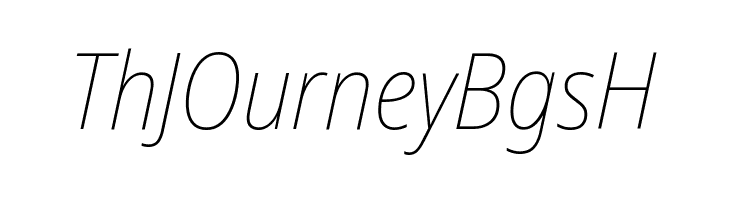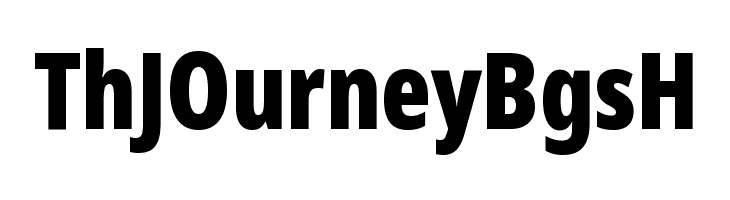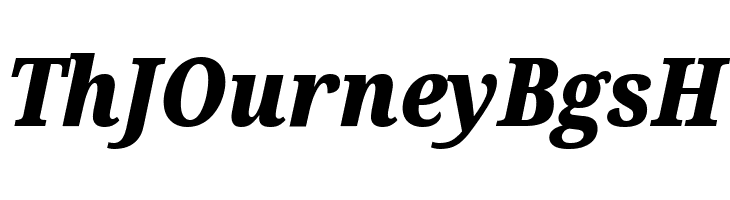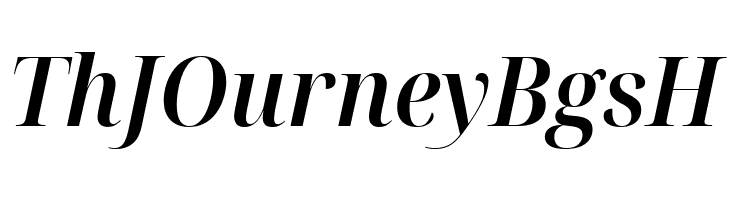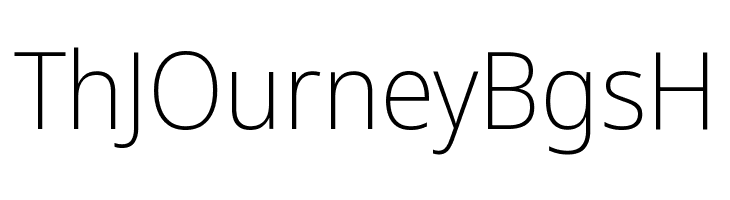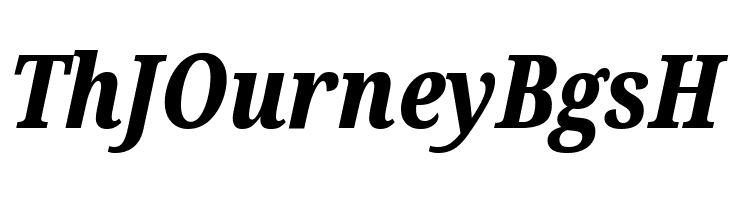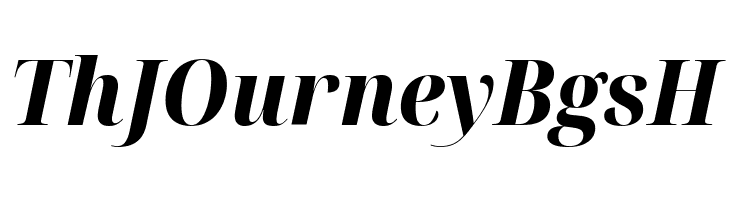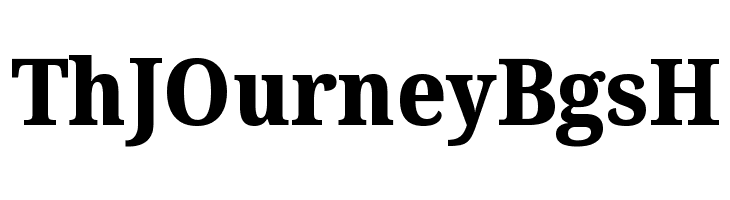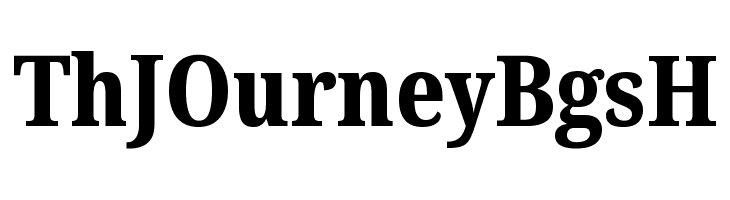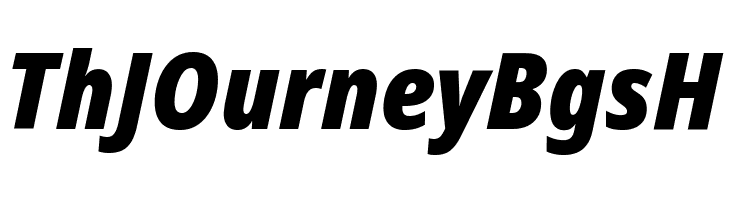
A sleek, modern, thin italic font with semi-condensed letterforms.
A bold, extra-condensed sans-serif font with strong visual impact.
A bold, condensed serif font with an elegant italic style.
A refined serif font with semi-condensed, semi-bold italic style.
A modern, extra light sans-serif font with a clean and minimalist design.
A classic serif typeface with extra bold, italic, and extra condensed features.
An elegant, extra bold, semi-condensed italic serif typeface with a modern twist.
A classic serif typeface with a semi-condensed, extra bold style, perfect for impactful headlines.
A bold, condensed serif font with a classic and authoritative style.
A bold, semi-condensed italic font with a modern and dynamic style.